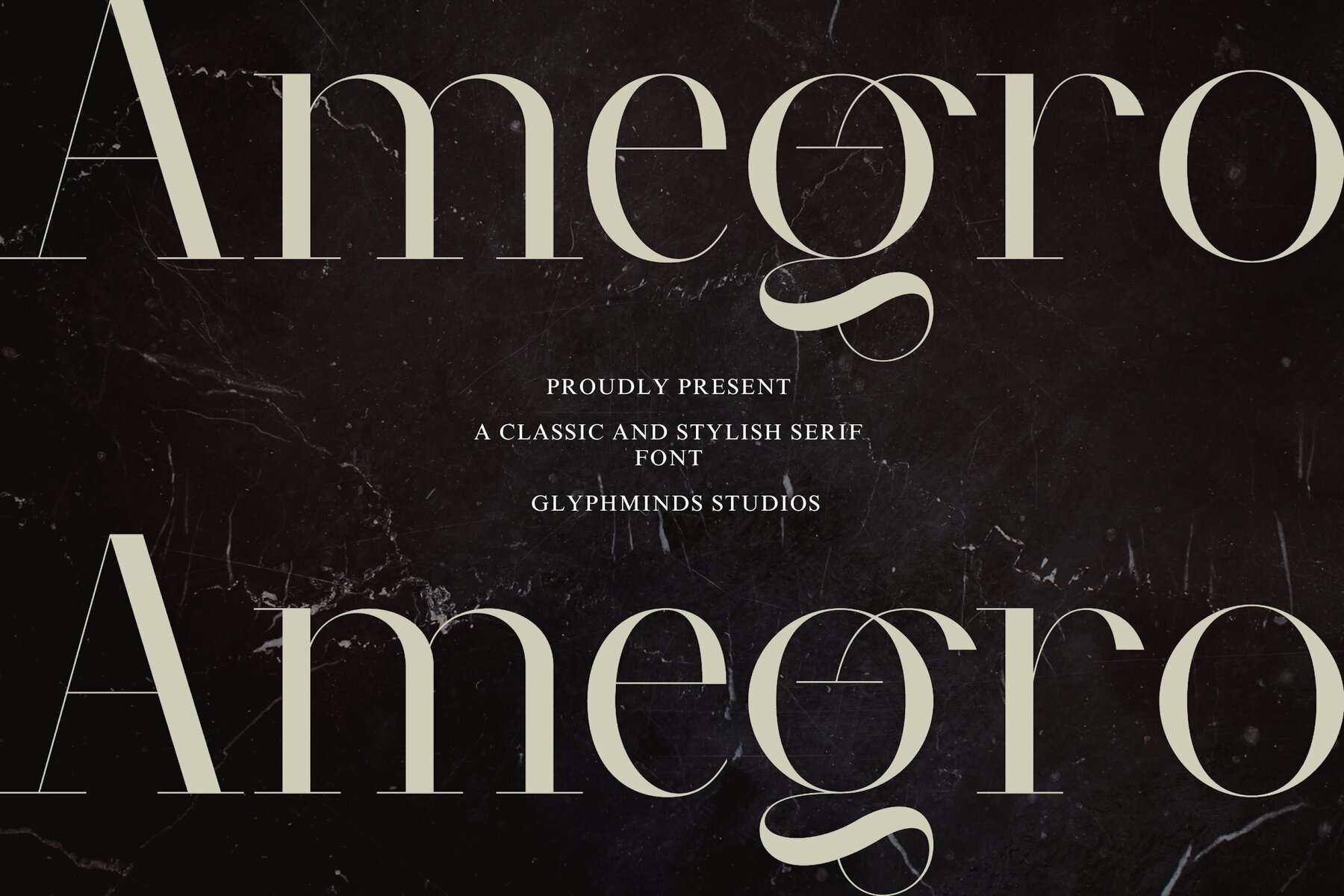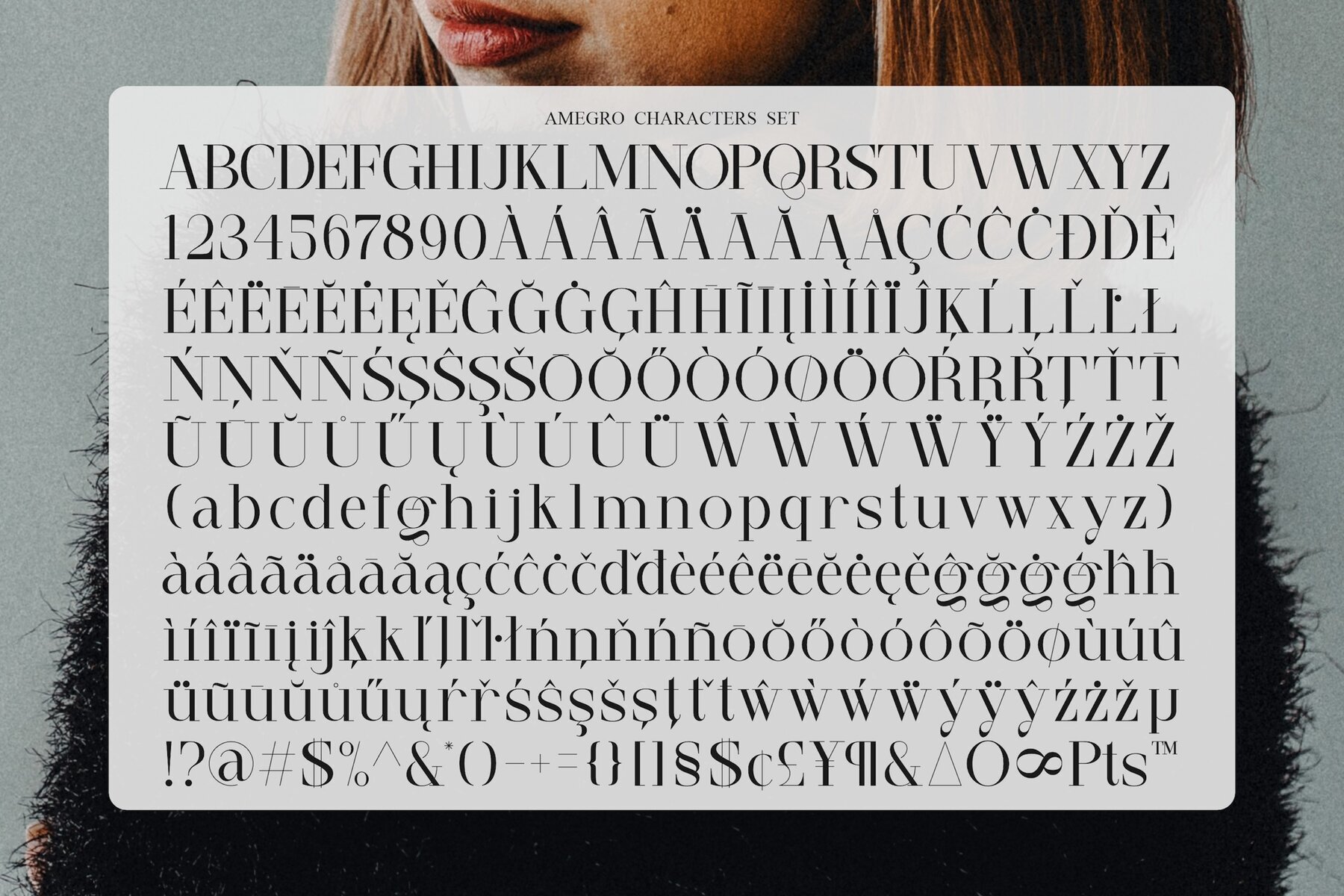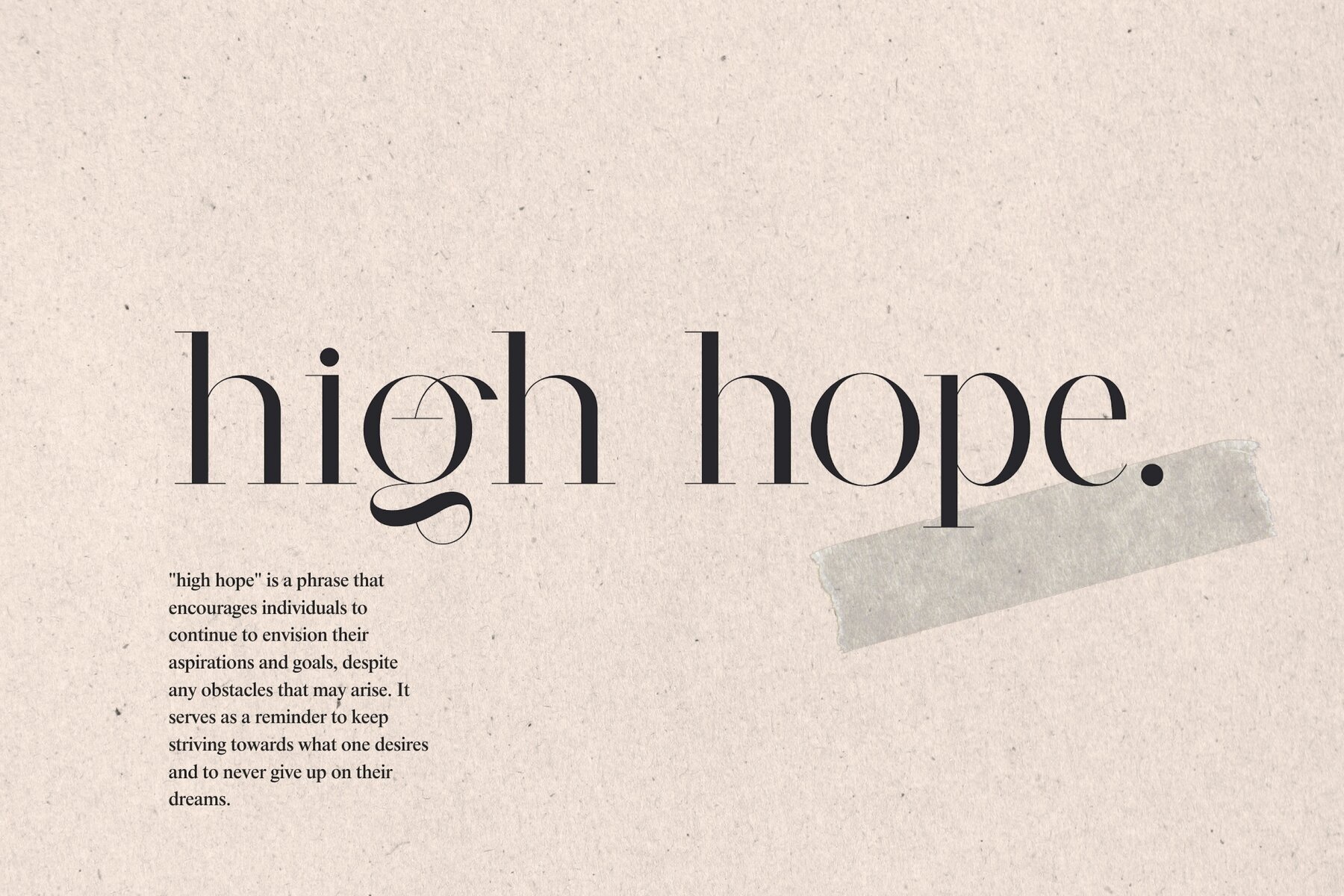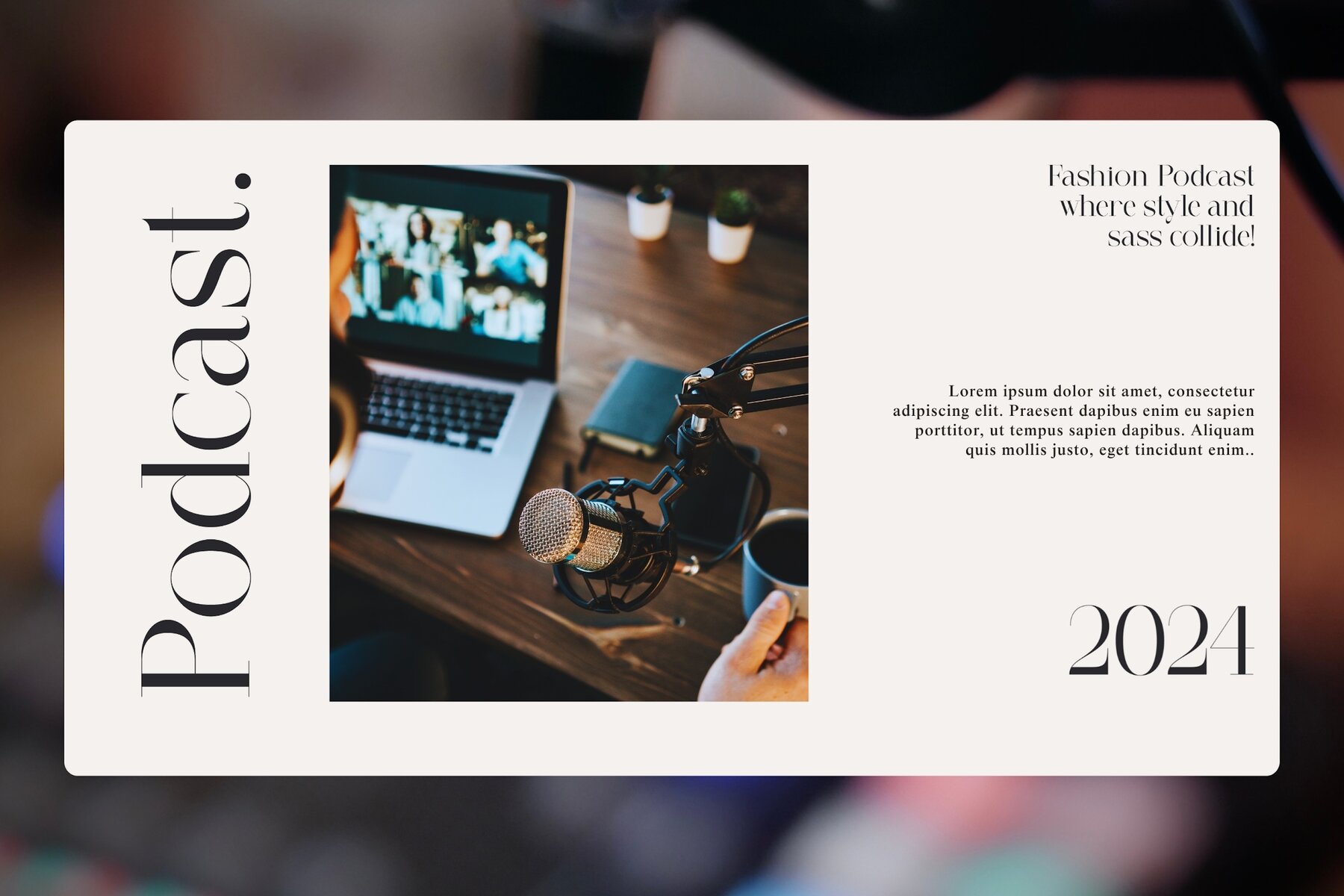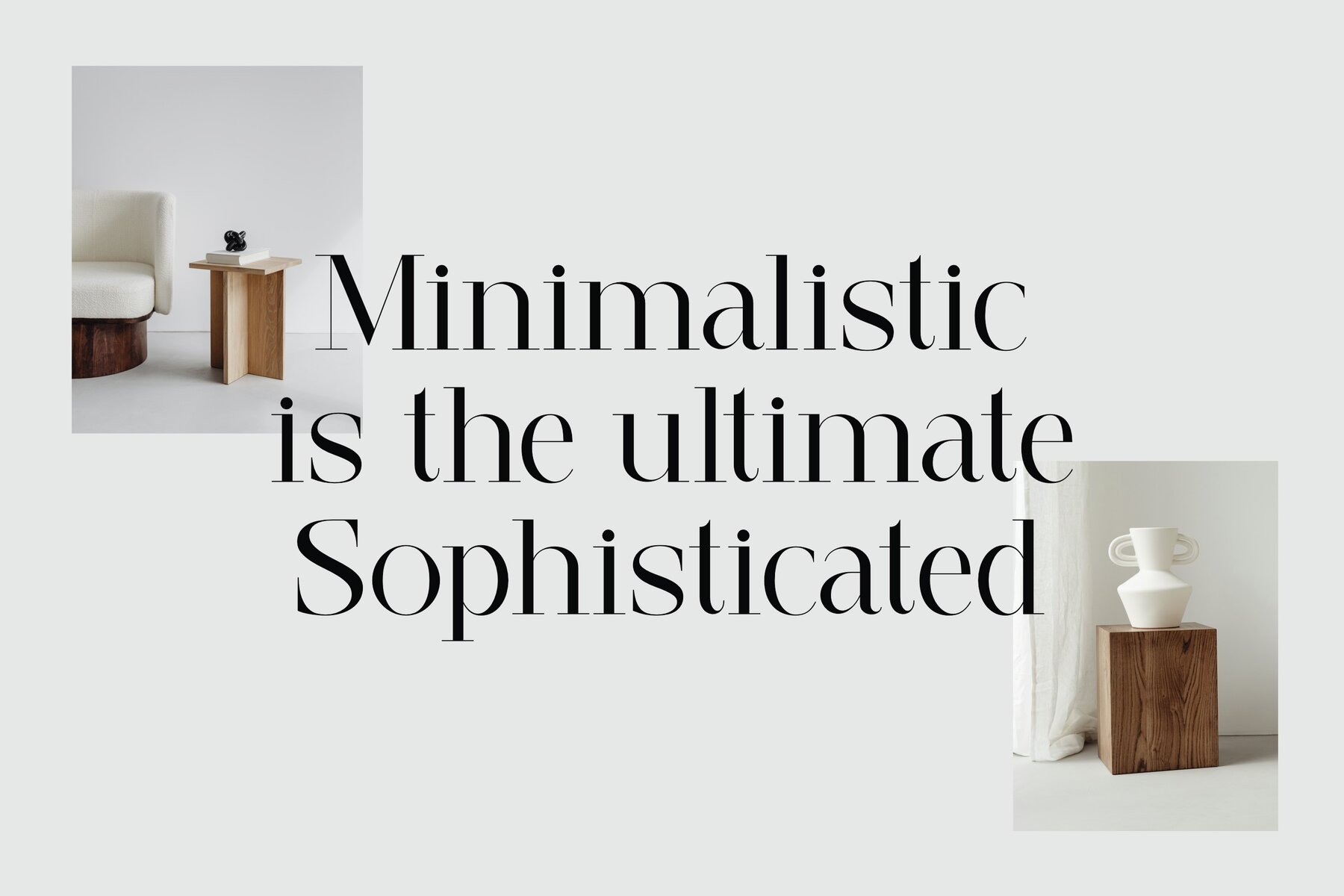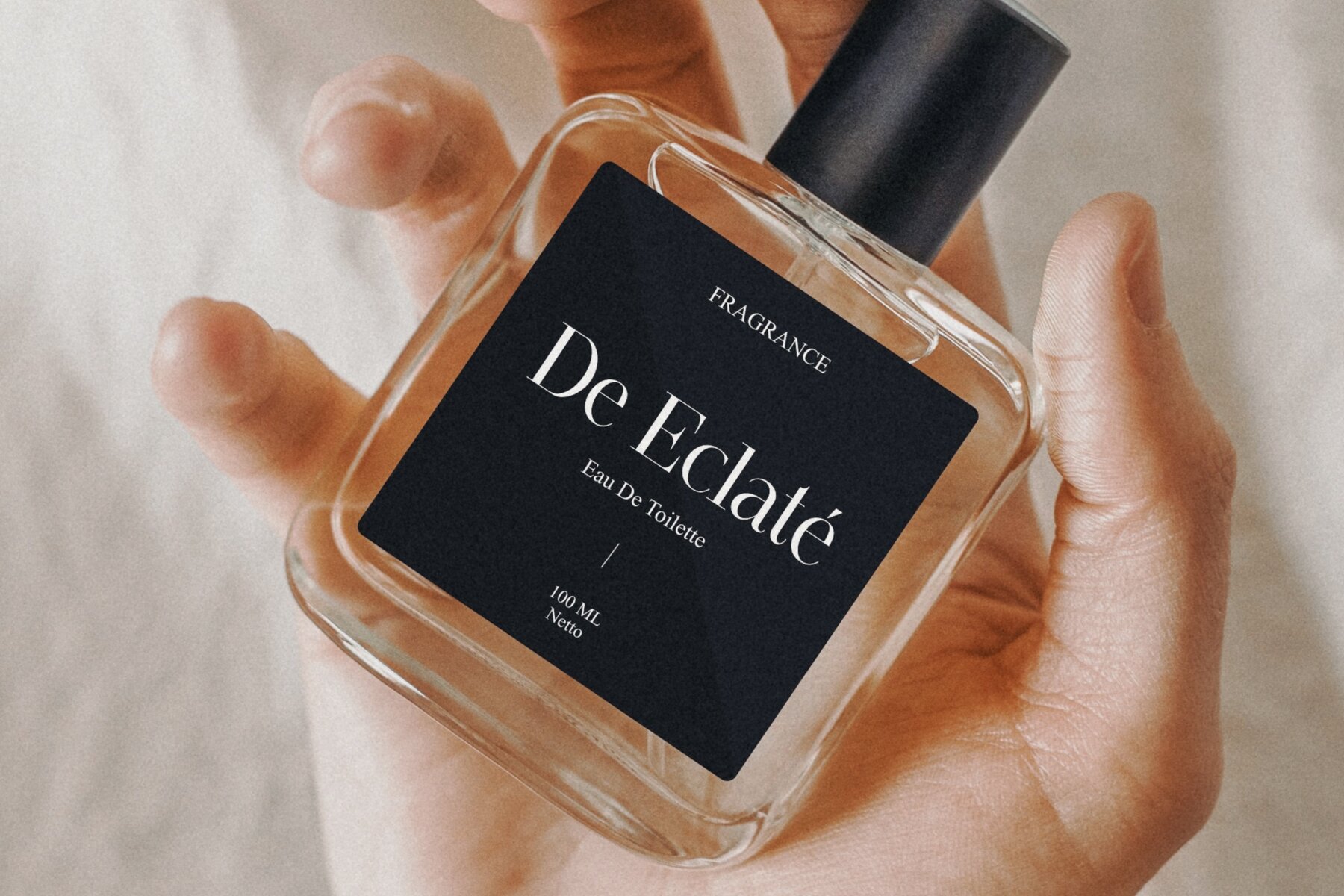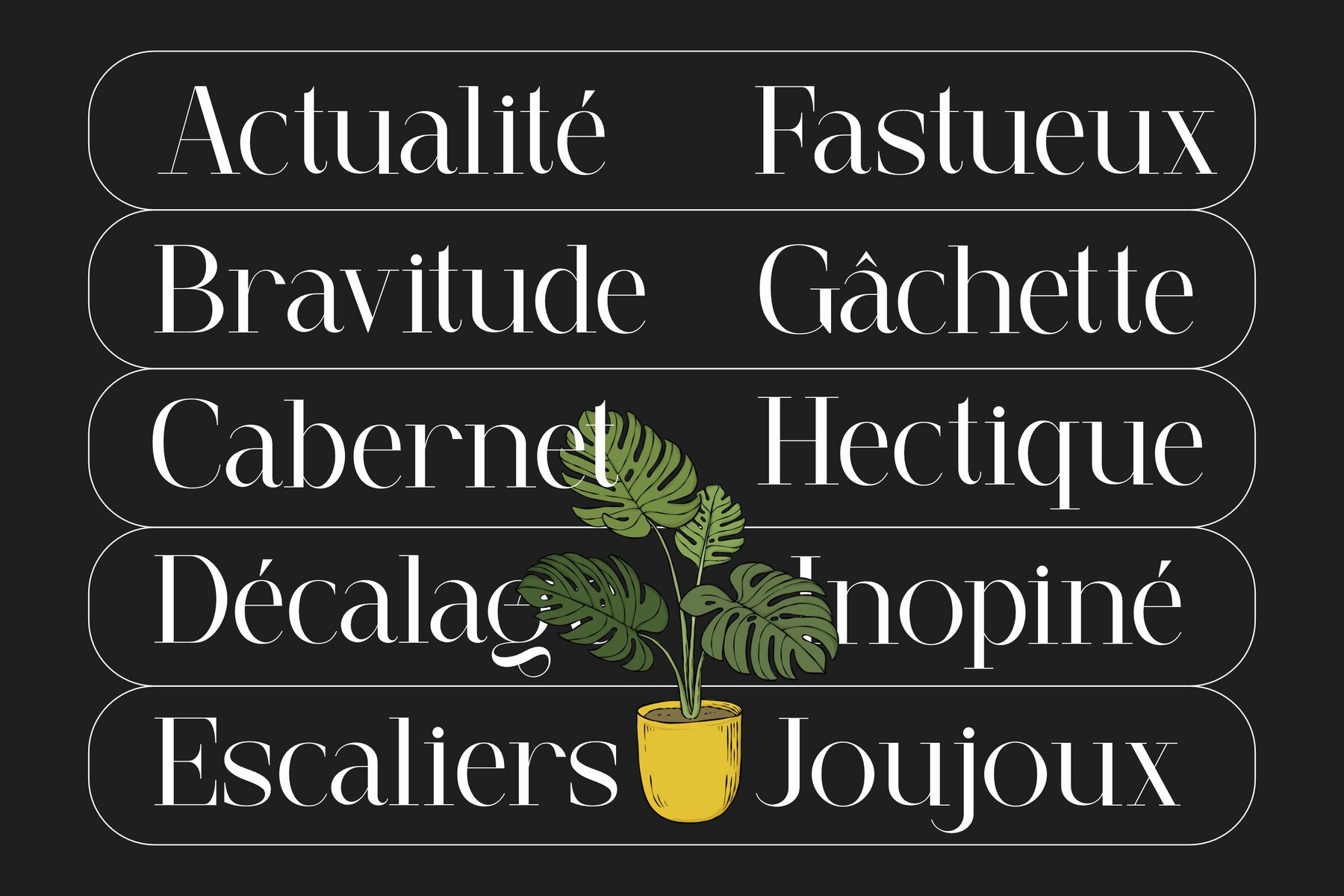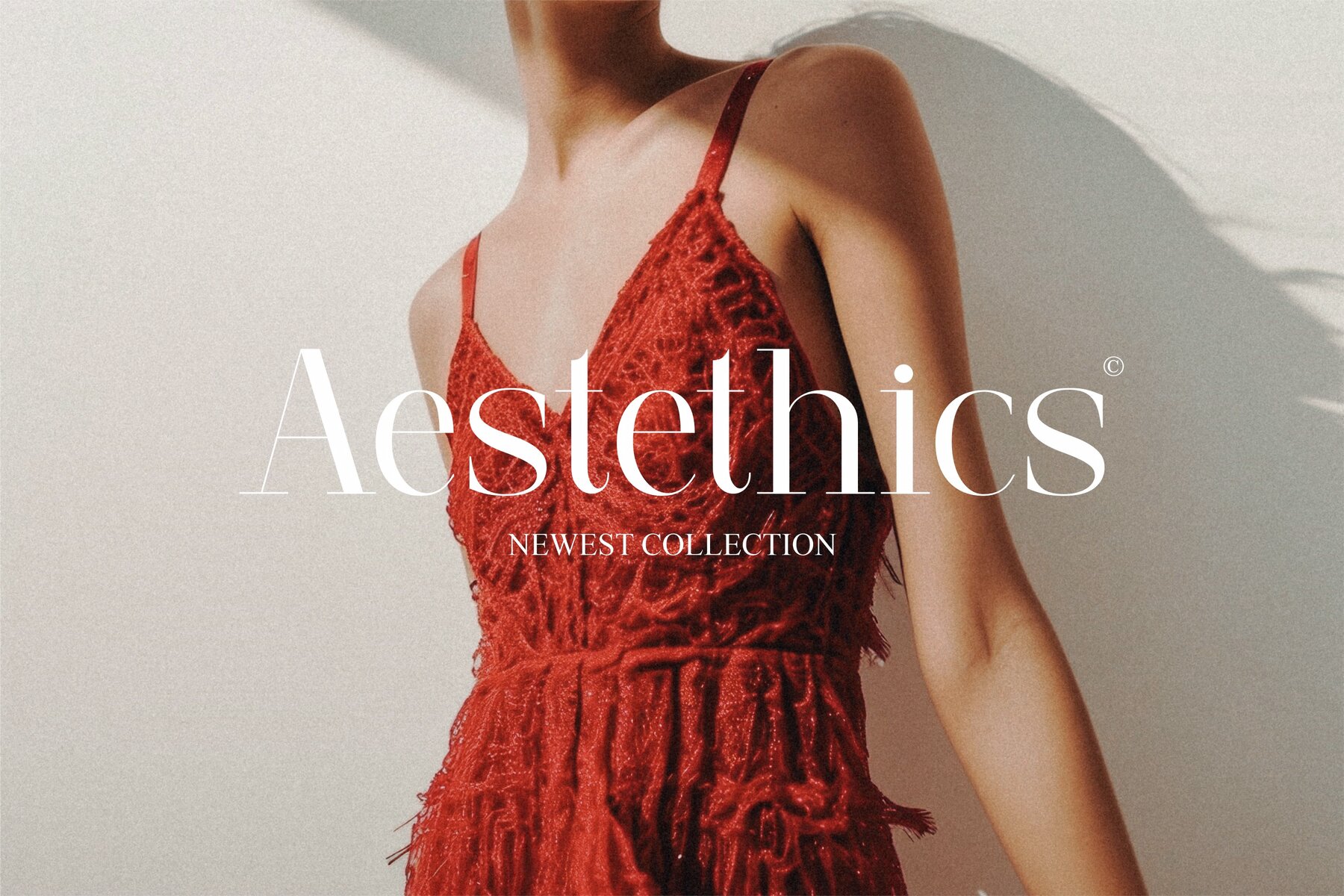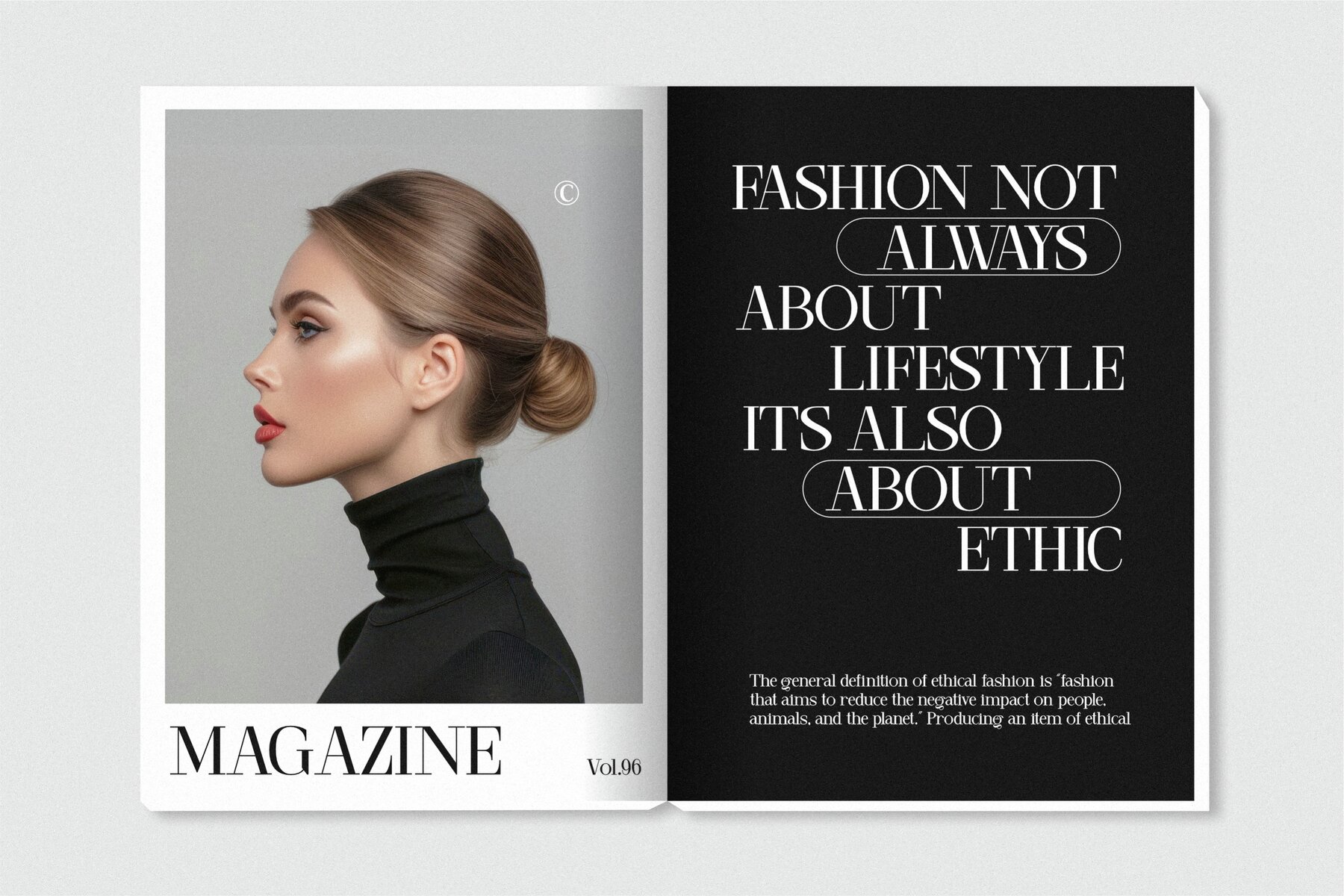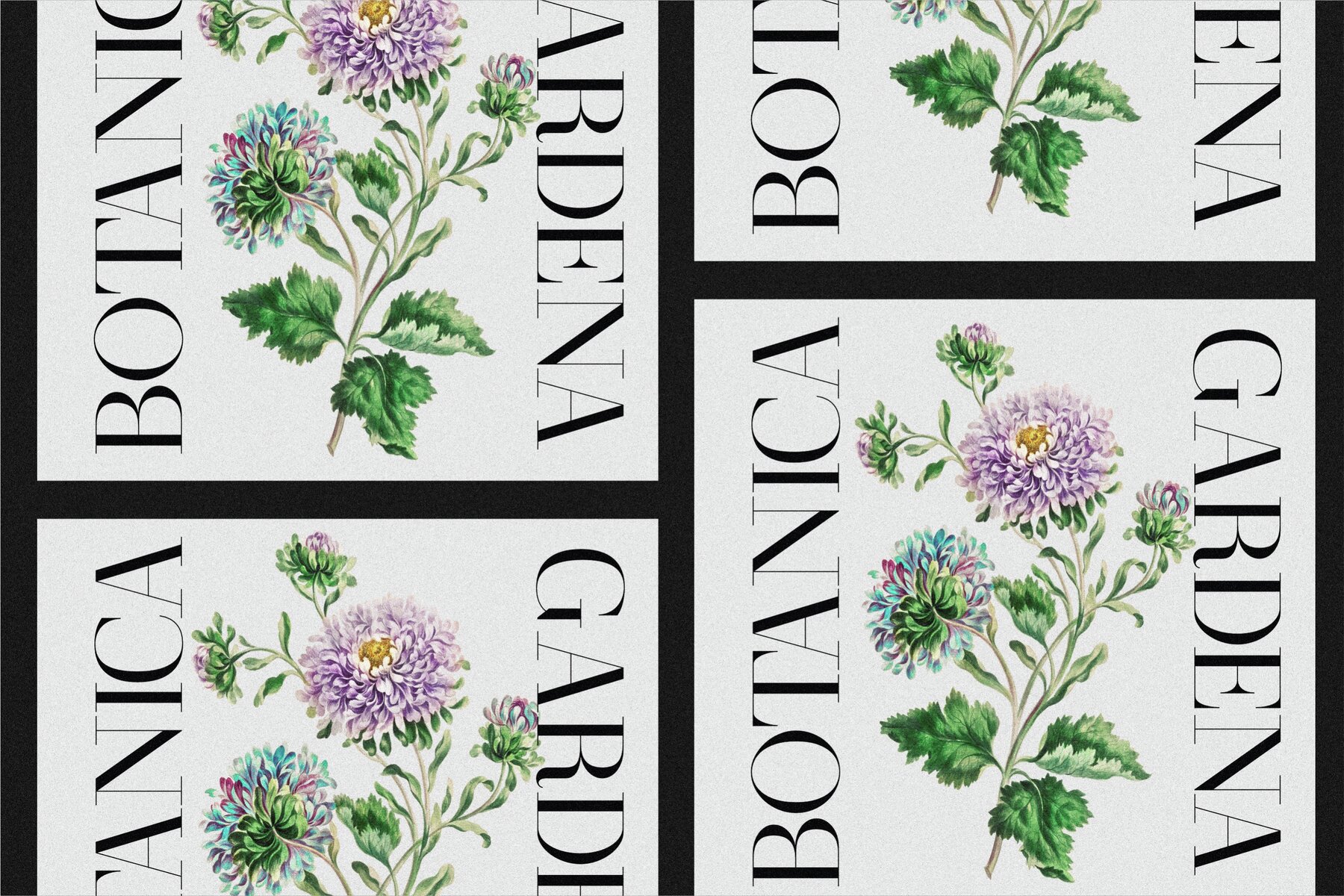
Amegro Font
Amegro Regular
Amegro brings a classic serif style to your design projects, combining traditional typography with modern nuances. With its elegant letterforms and delicate serifs, Amegro is crafted to strike a balance between tradition and innovation. This font includes uppercase, lowercase, numerals, punctuation, and multilingual support. Its gracefully sculpted characters make it suitable for a range of applications.
Whether you're working on branding materials, editorial layouts, invitations, or web content, Amegro offers remarkable versatility. Its timeless aesthetic provides sophistication, enhancing projects with subtle, refined details. Amegro's design ensures your work stands out, capturing attention effectively with its unique personality.
Amegro is more than just a font; it offers character and flair to your projects, setting them apart. Explore the seamless blend of classic and contemporary styles with Amegro, and discover the potential of timeless elegance in your design endeavors.